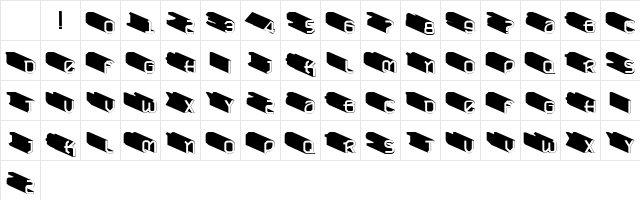
vtks urban time super 3d Regular
Design Context for vtks urban time super 3d
vtks urban time super 3d is a composed and adaptable typeface that performs quietly and consistently across a wide range of design contexts.